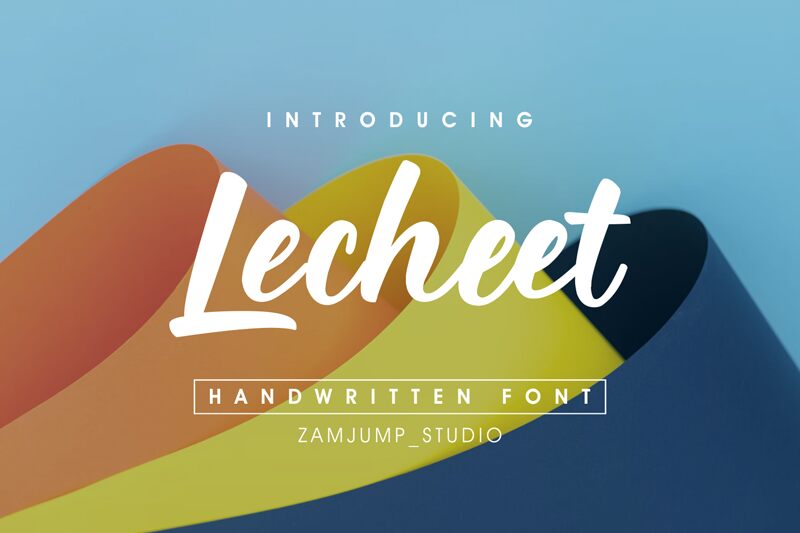
Lecheet, designed by zamjump, is a captivating handwritten font that adds an artistic touch to any project. With its unique strokes and flowing curves, this font brings a sense of elegance and creativity to various designs. Perfect for branding projects, Lecheet's semi-bold typeface stands out on logos, packaging, and business cards, leaving a lasting impression on your audience. Its versatile width makes it suitable for both digital and print media such as websites, social media graphics, posters, flyers, or even personalized invitations. Let Lecheet transform your next design into a visually stunning masterpiece.